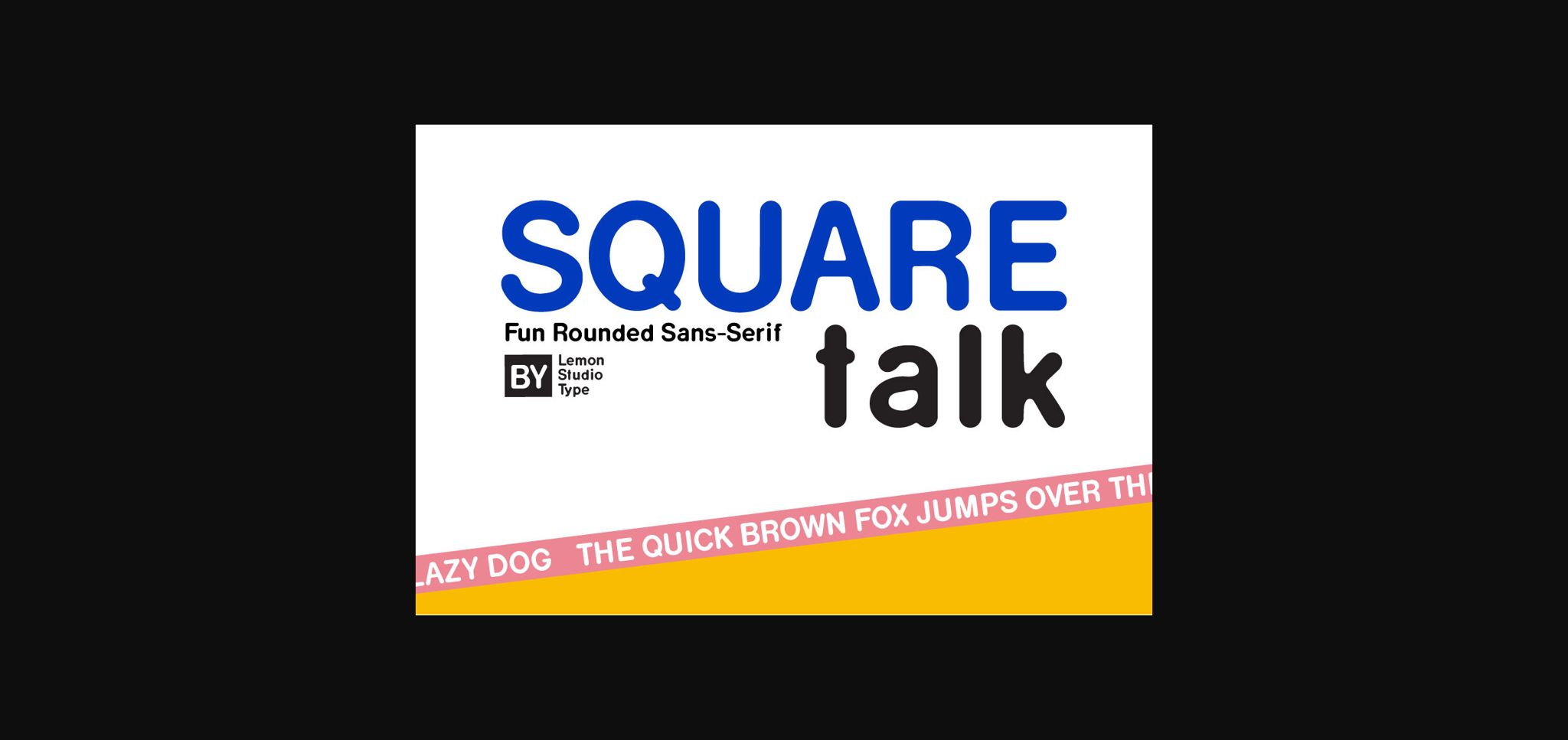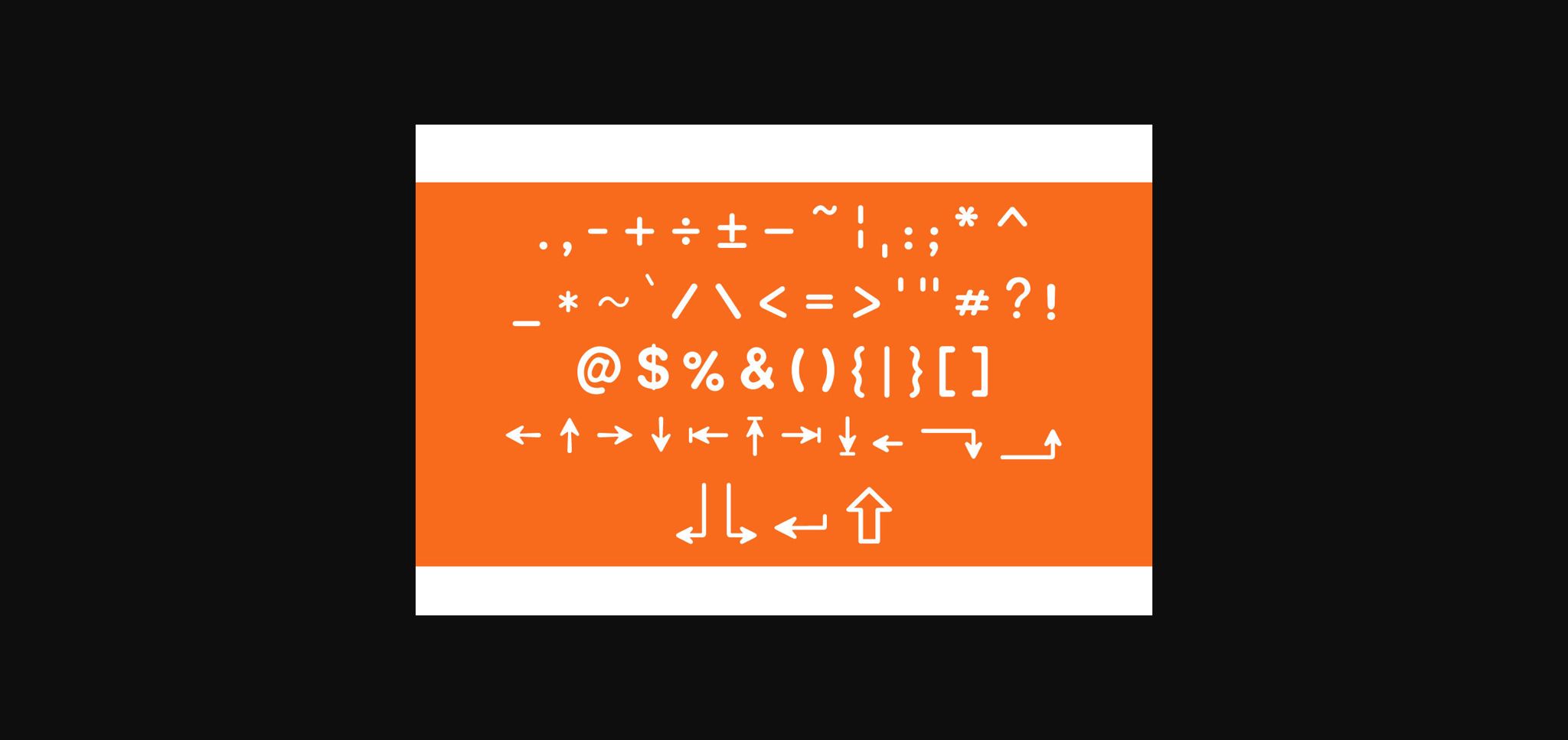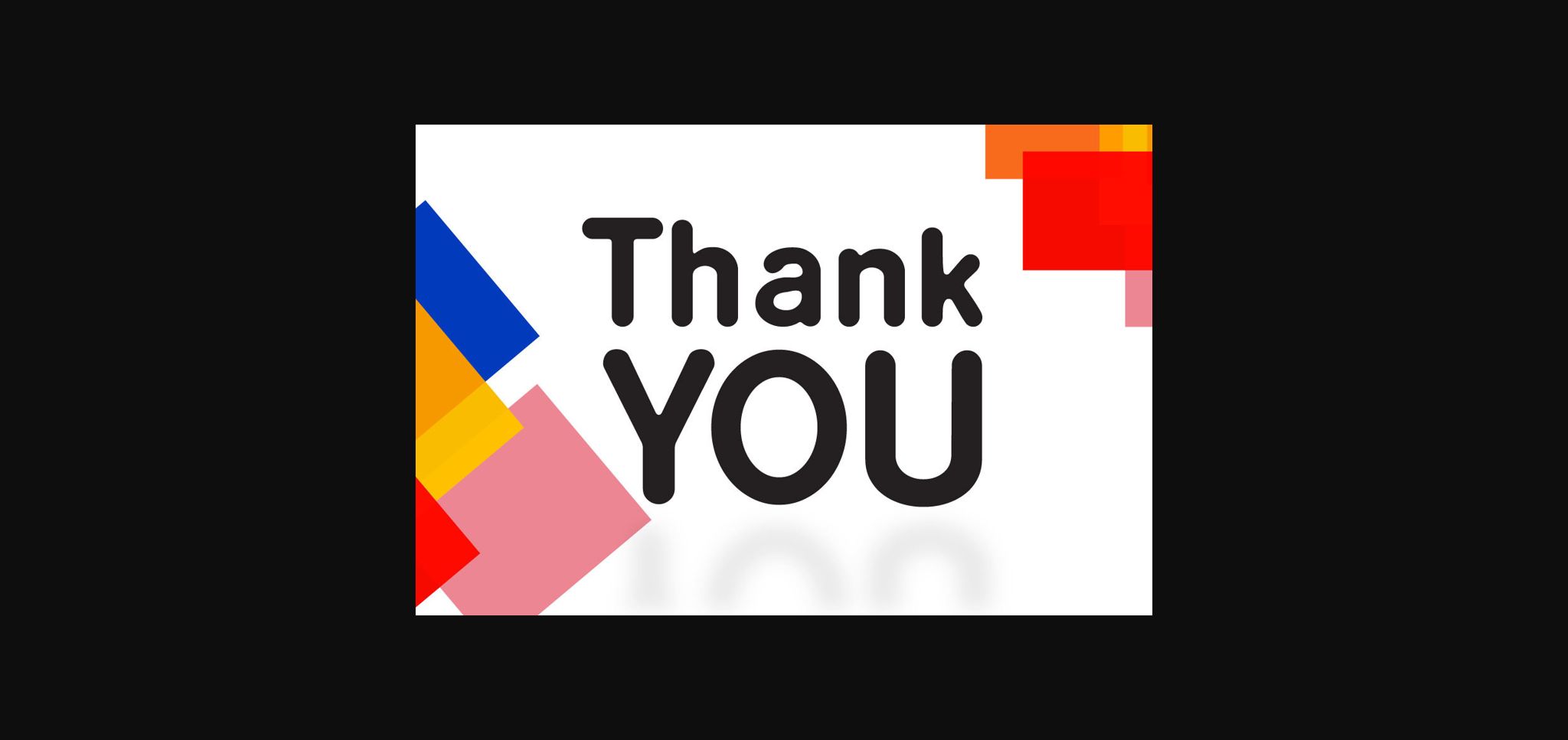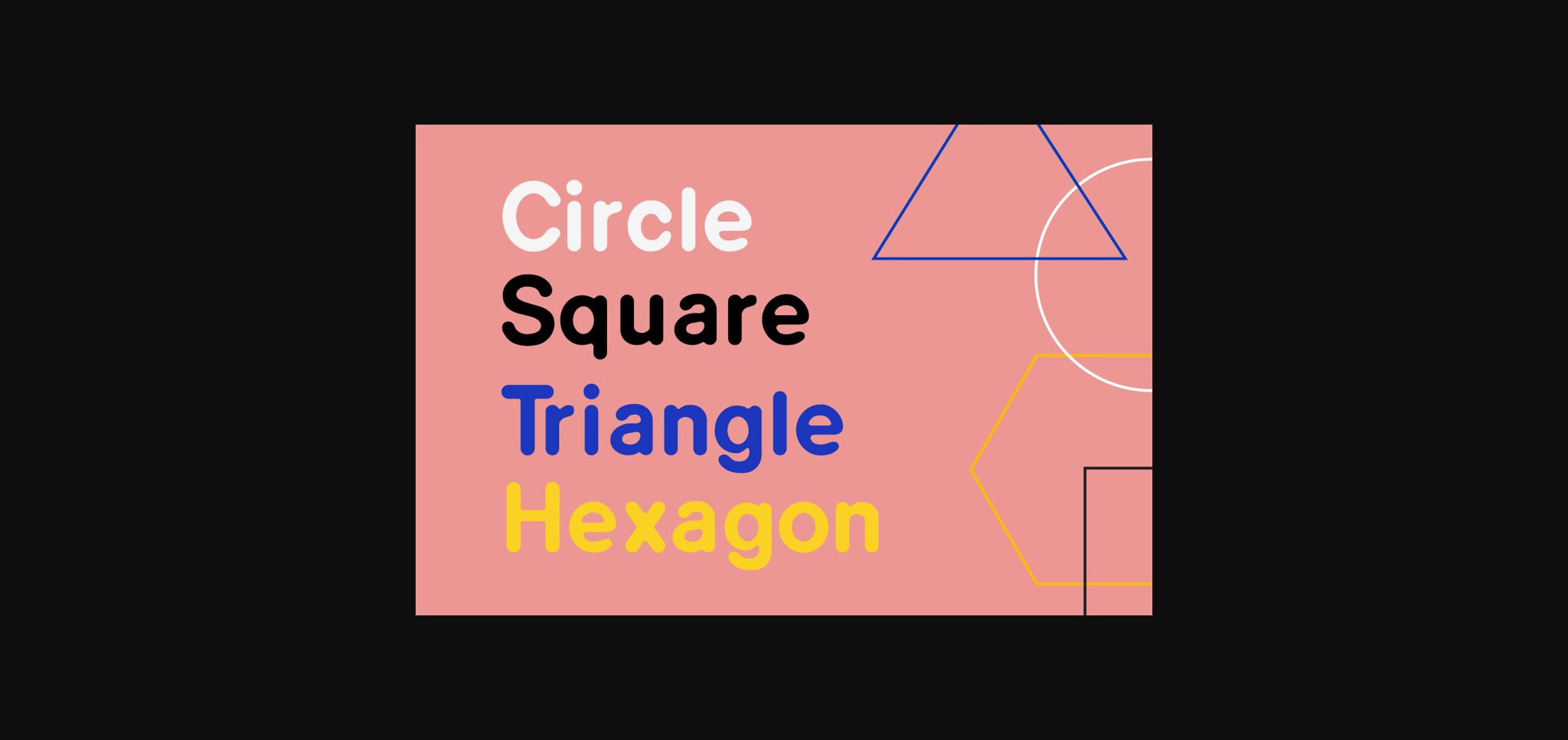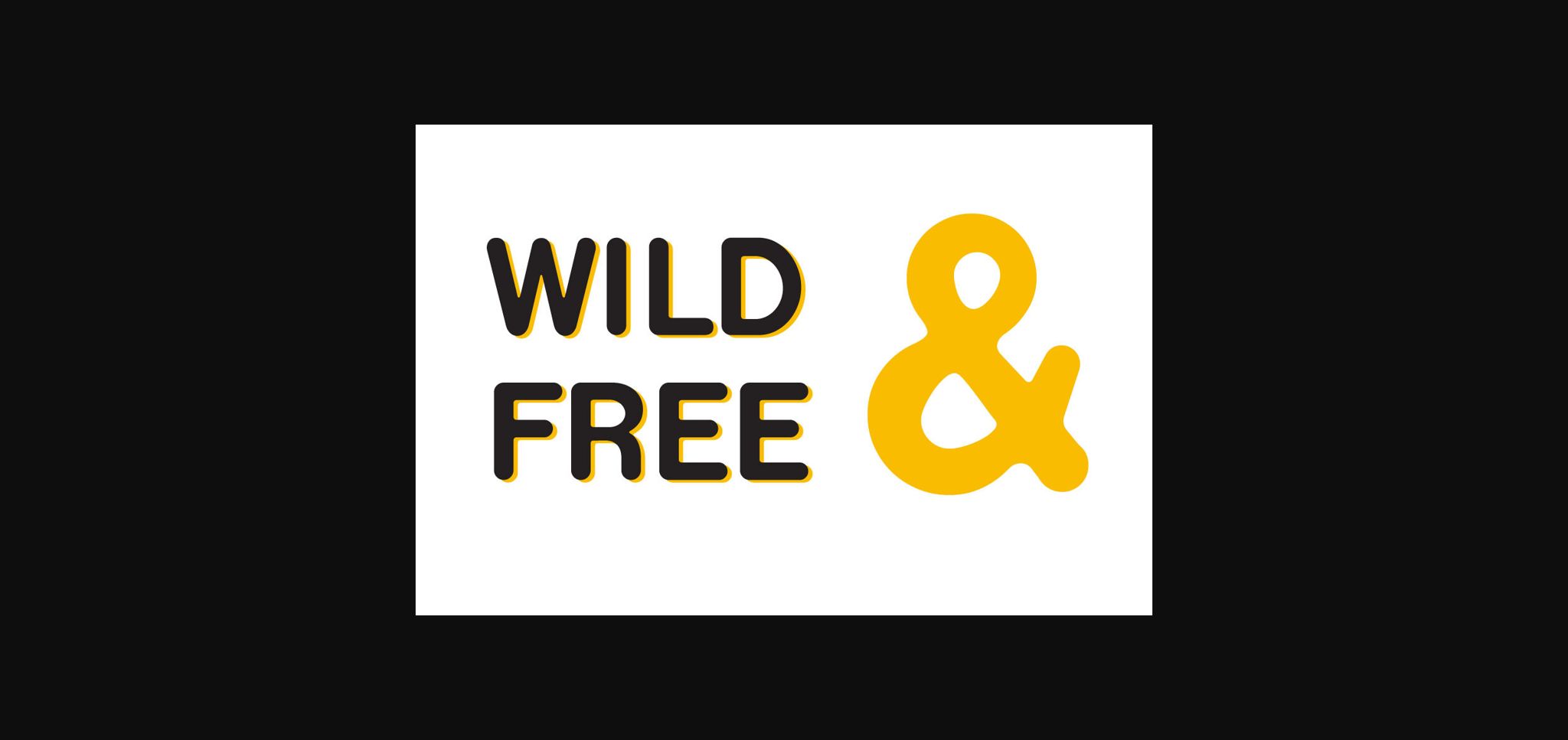
About Square Talk Font
Square Talk is a minimal, fun, and classy rounded sans-serif font. Looks great in any layout with its charming rounded lines.
Square Talk is perfect for branding, headings, or many other projects that can be combined with this font. Bring together the fun and classy rounded sans-serif style of this font.